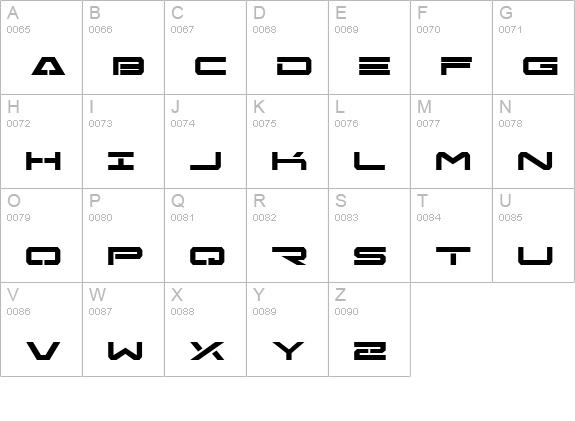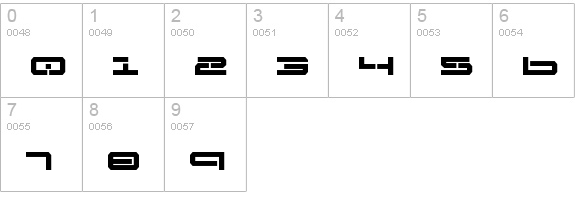
Free Agent Bold Expanded Font Details
Free Agent Bold Expanded is a strong, high-contrast, extended-width variant in the Free typeface family \xE2\x80\x94 well suited to headlines, attention-grabbing titles, and strong calls-to-action.
Free Agent Bold Expanded is a striking and modern typeface that exudes confidence and creativity. Its bold and expanded design makes it perfect for headlines, titles, and any text that needs to make a bold statement. The sharp lines and sleek curves of this font give it a contemporary edge that is sure to catch the eye. This versatile font is freely available for download at FontsMarket.com, making it a valuable addition to any designer's toolkit. Whether you're working on a branding project, a poster design, or any other creative endeavor, Free Agent Bold Expanded is sure to make a bold and impactful impression. With its clean and professional appearance, this font is ideal for creating a polished and modern look in your designs.